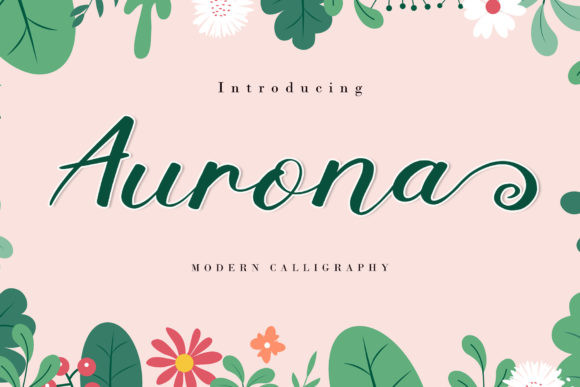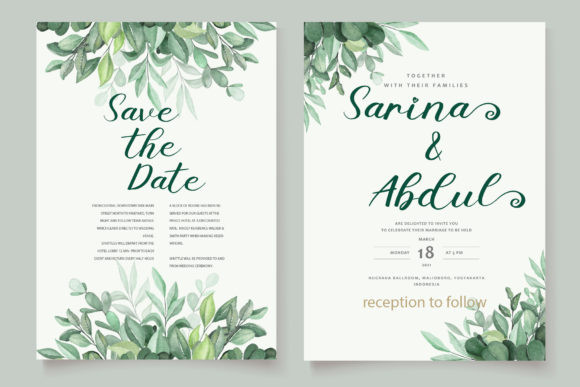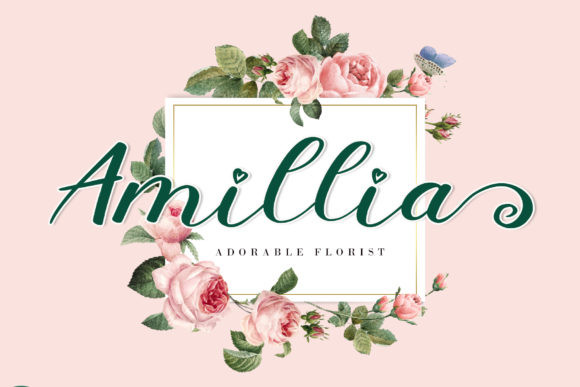
Aurona Font
Aurona is a classic and natural handwritten font. Fall in love with its authentic feel and use it to create gorgeous wedding invitations, beautiful stationary art, eye-catching social media posts, and cute greeting cards. It is PUA encoded which means you can access all of the glyphs and swashes with ease!